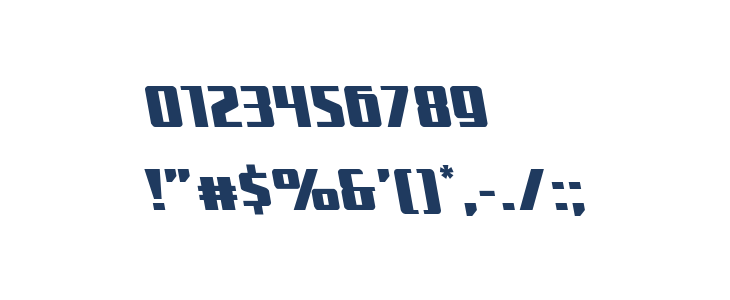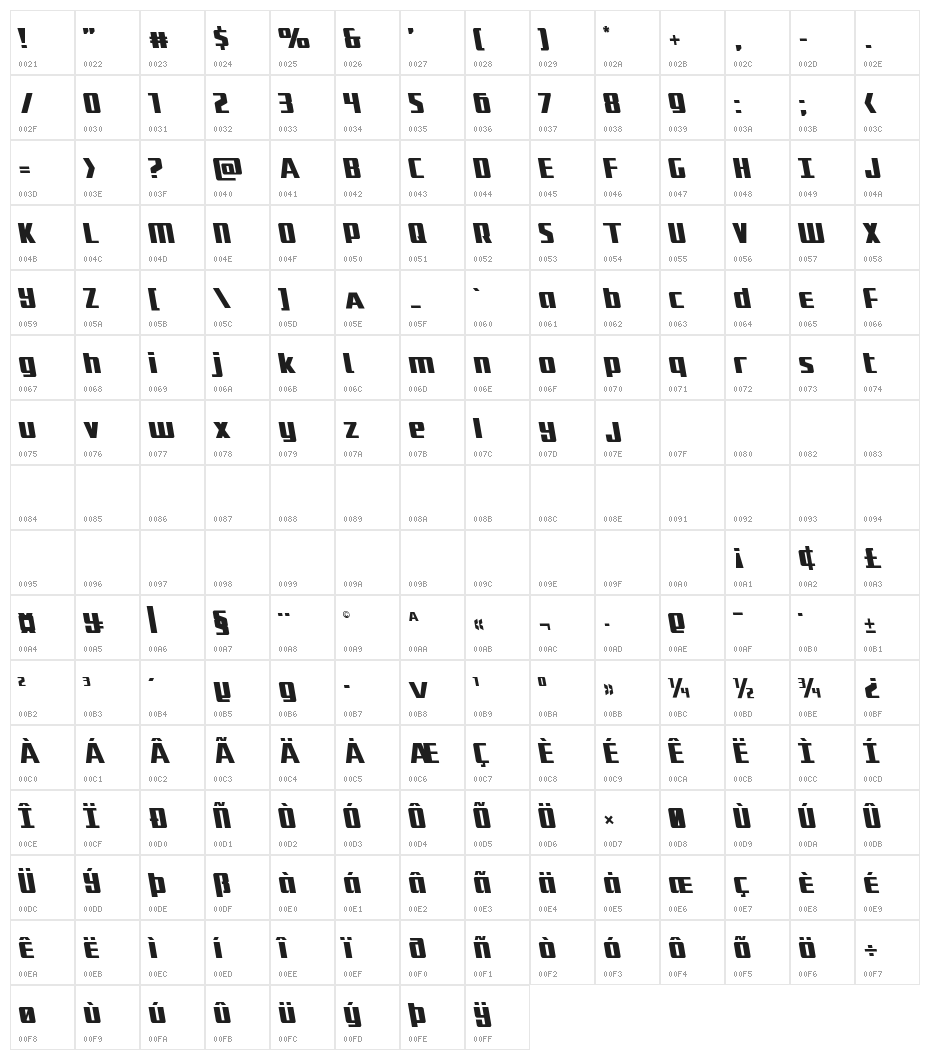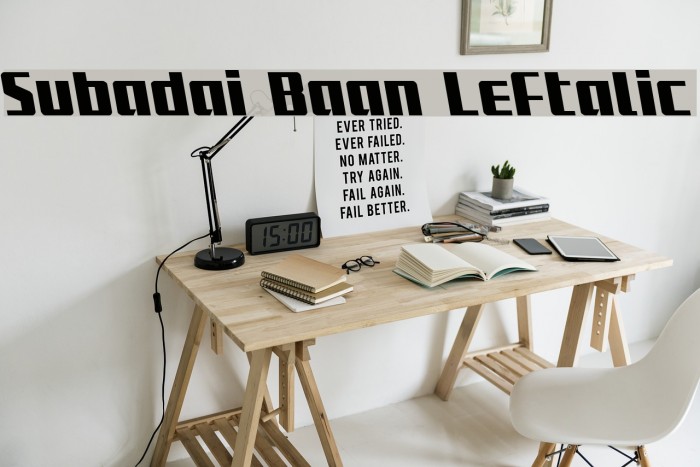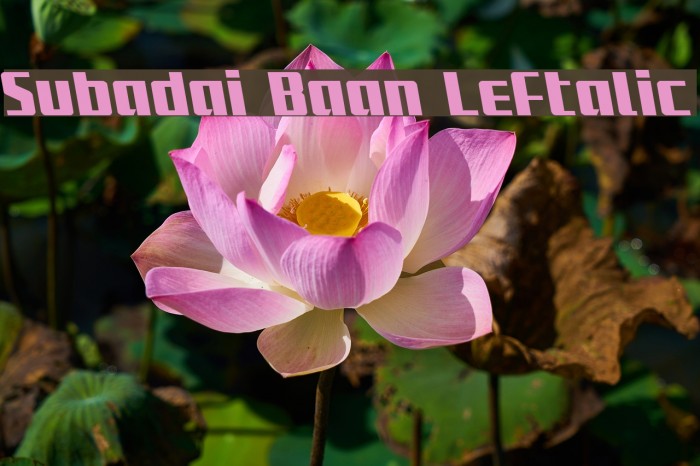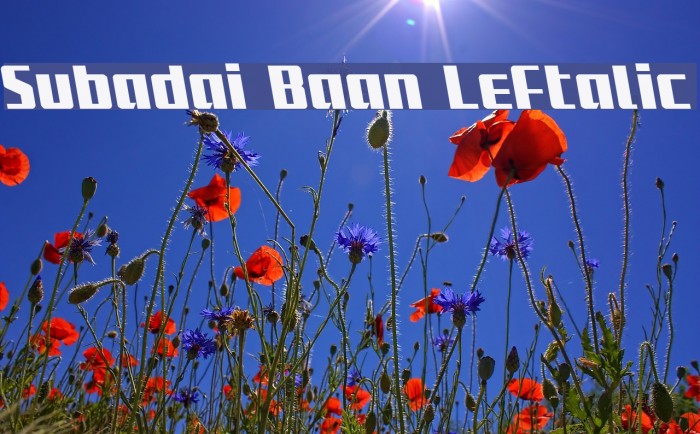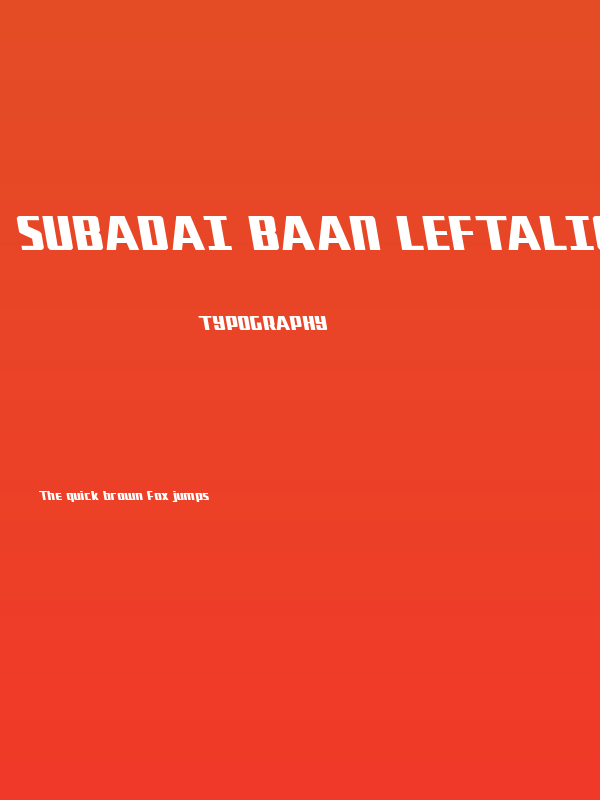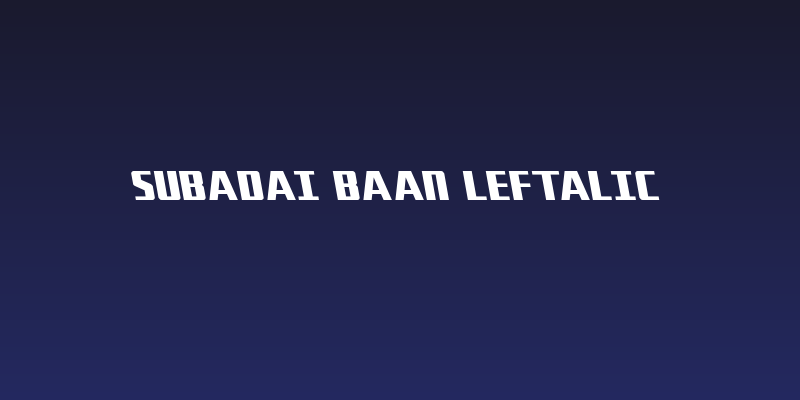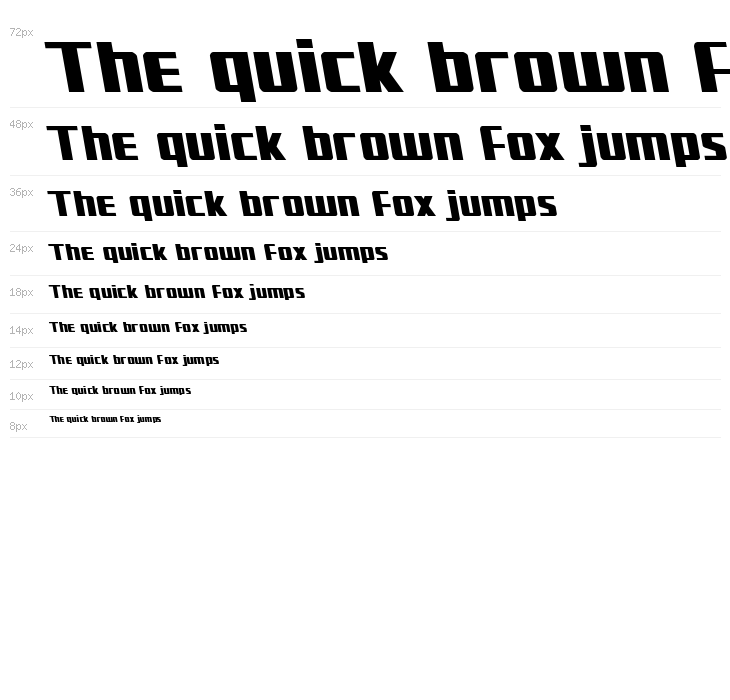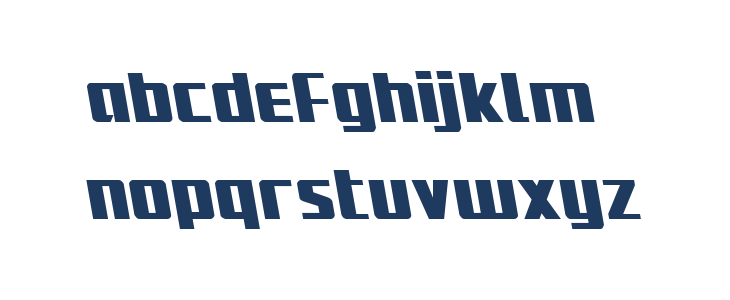
Subadai Baan Leftalic Font
Subadai Baan Leftalic Description
This font features a bold and dynamic style with a distinct slant to the left, giving it a sense of motion and energy. The characters are blocky and robust, with thick strokes that convey strength and stability. The uppercase and lowercase letters maintain a consistent width, contributing to a uniform appearance. The numerals and special characters are designed to match the boldness of the alphabet, ensuring a cohesive look across all text. This font's unique leftward slant and bold presence make it stand out, ideal for projects that require a strong visual impact.
| Proposed Projects | Ideal for sports branding, dynamic posters, video game titles, and any project needing a bold, energetic typeface. |